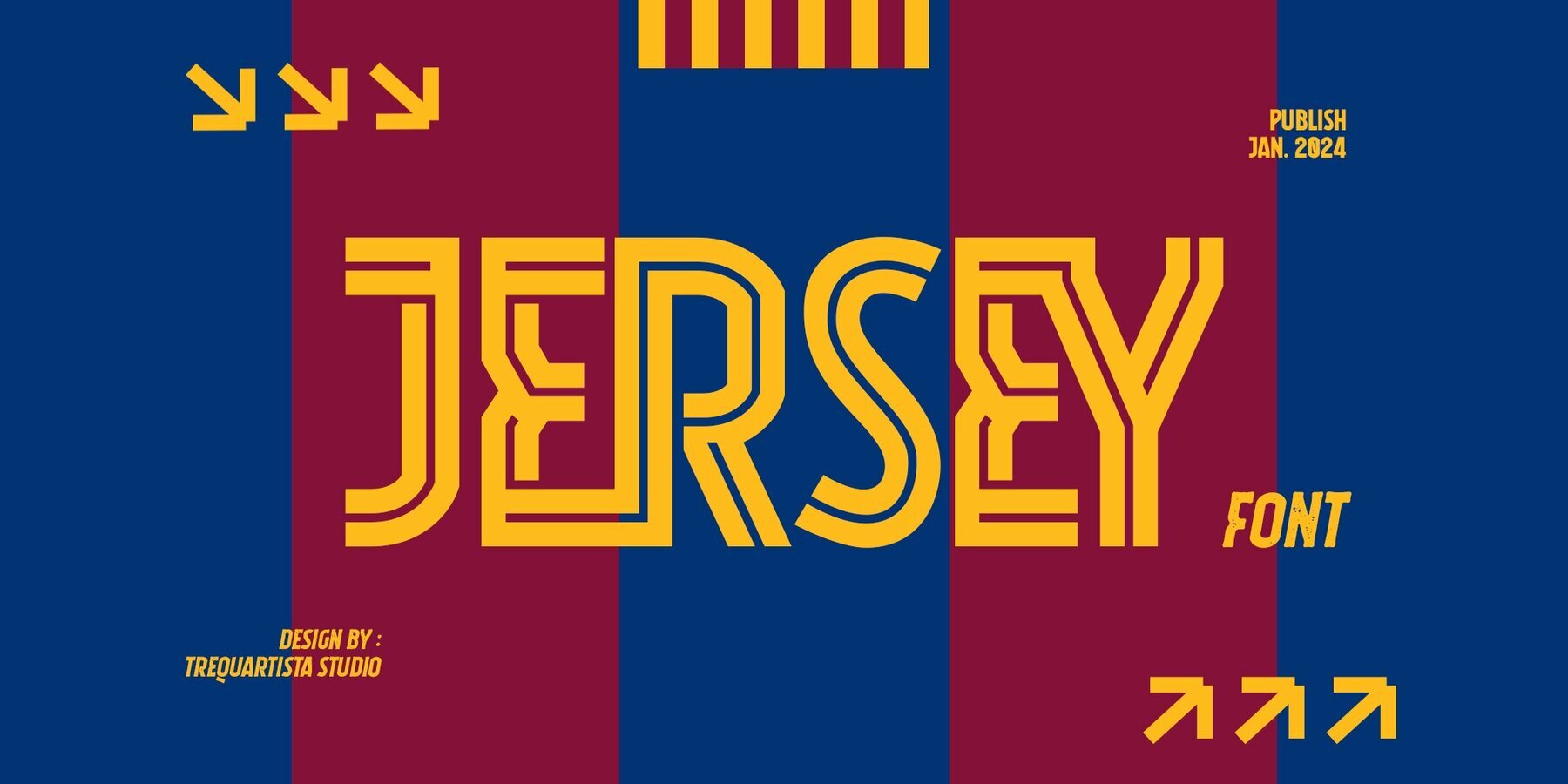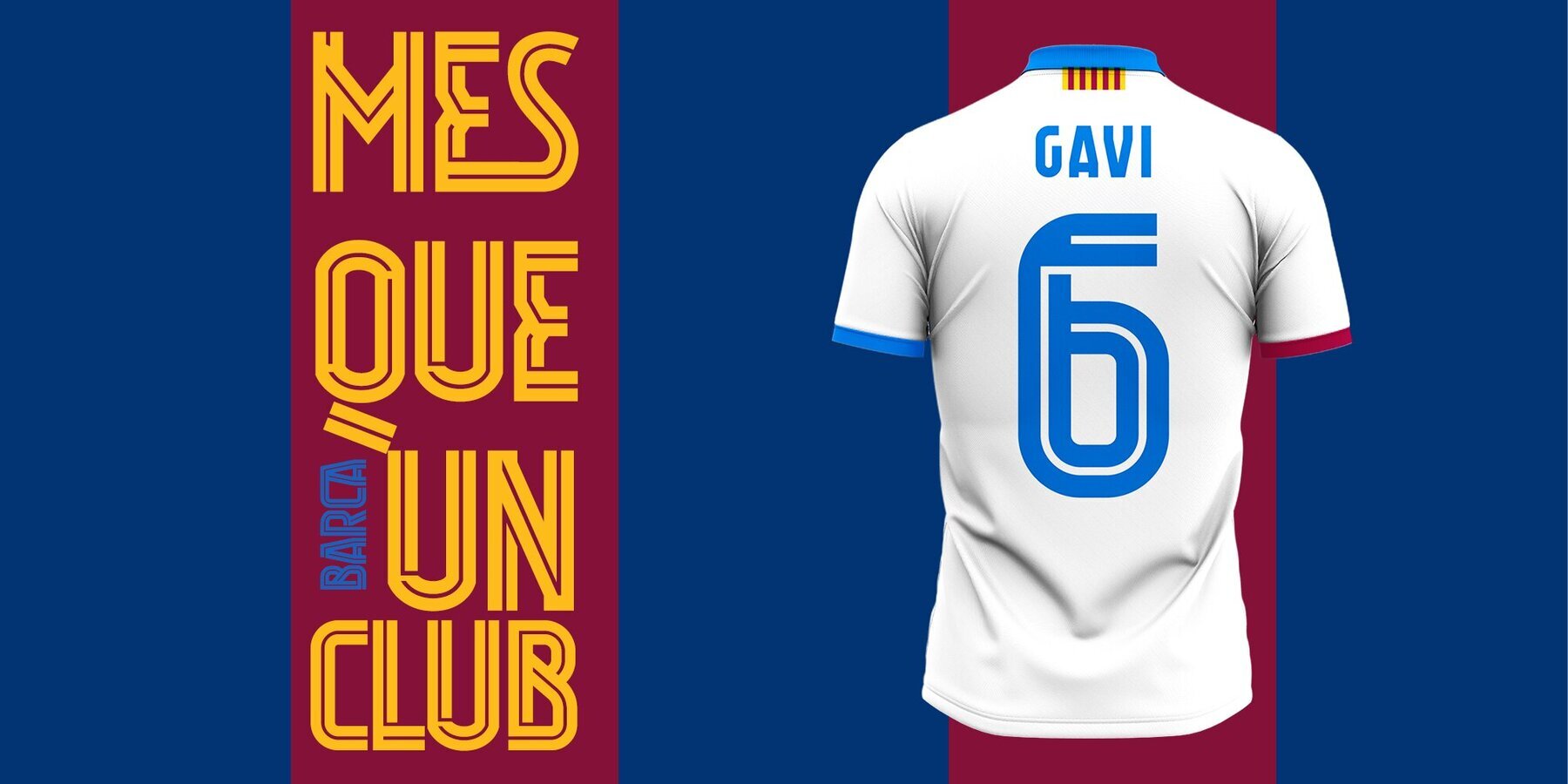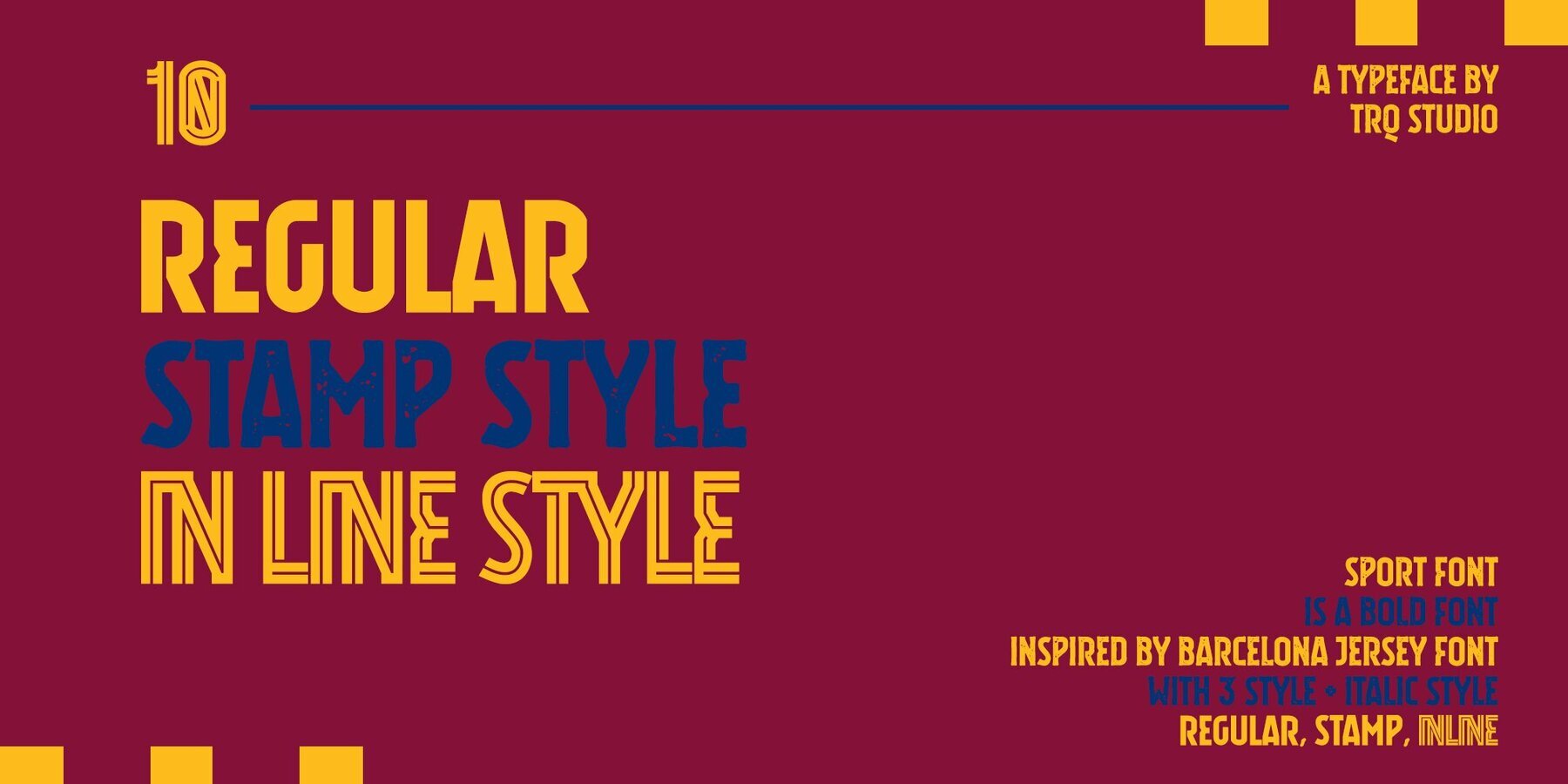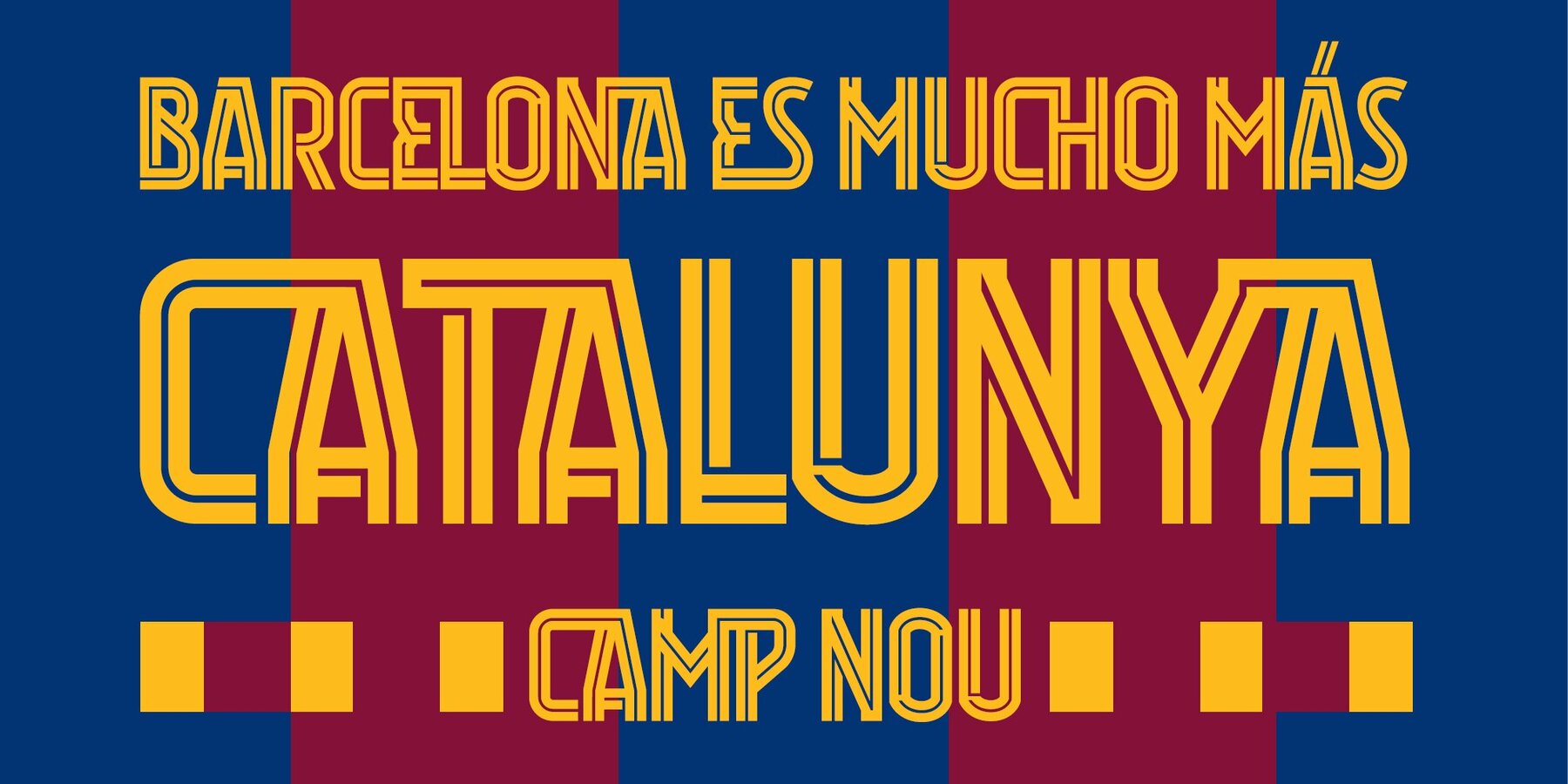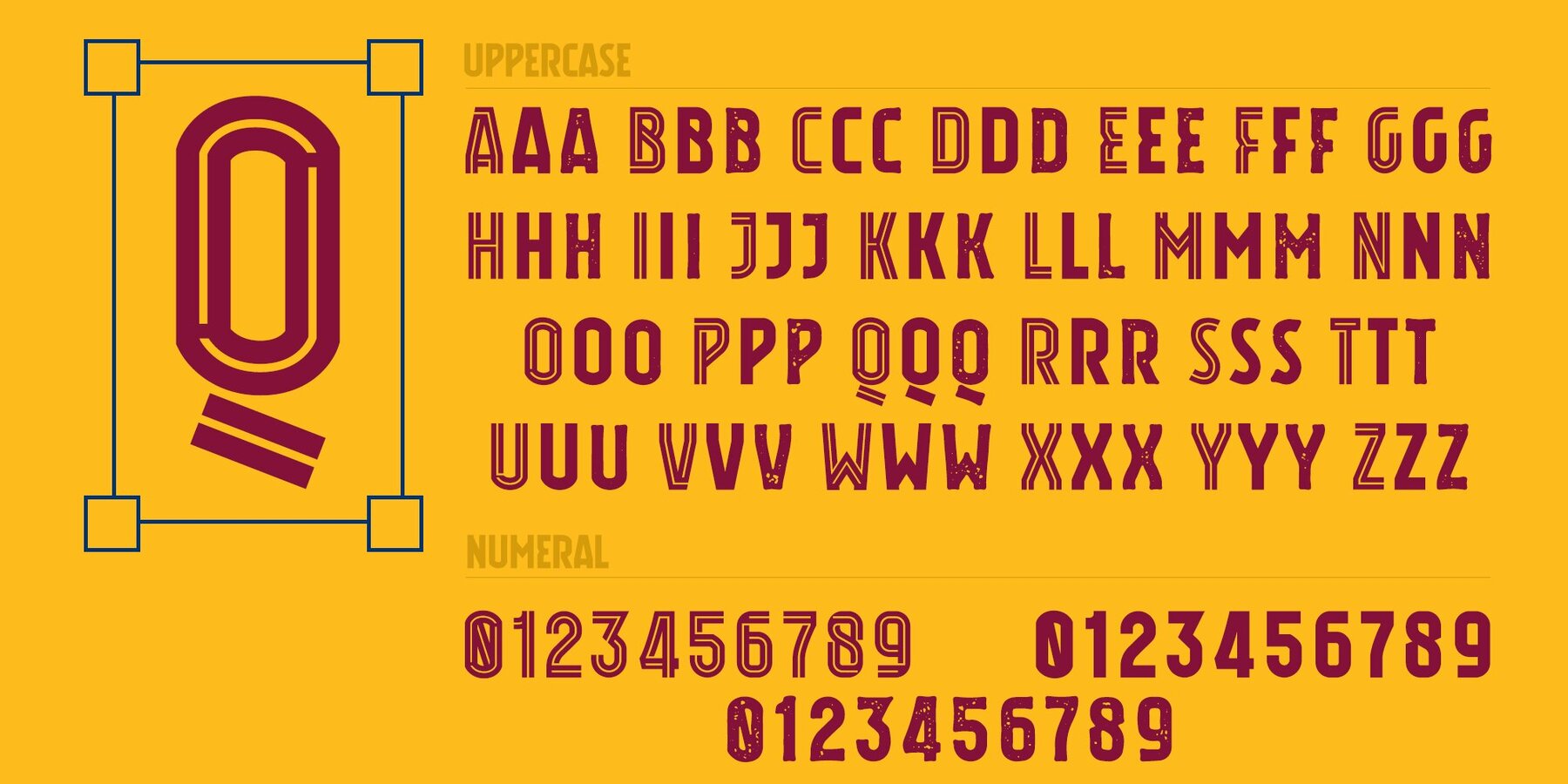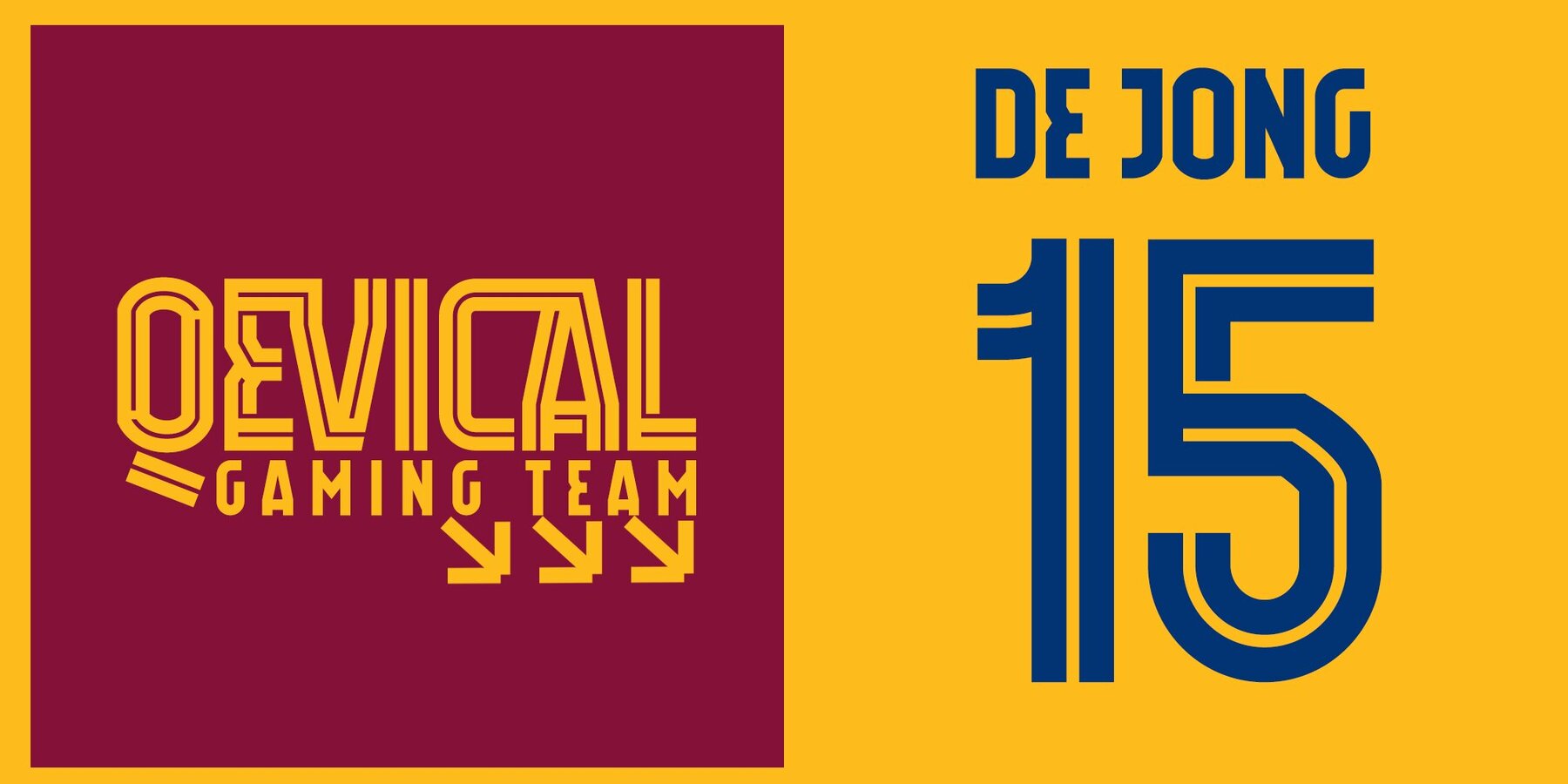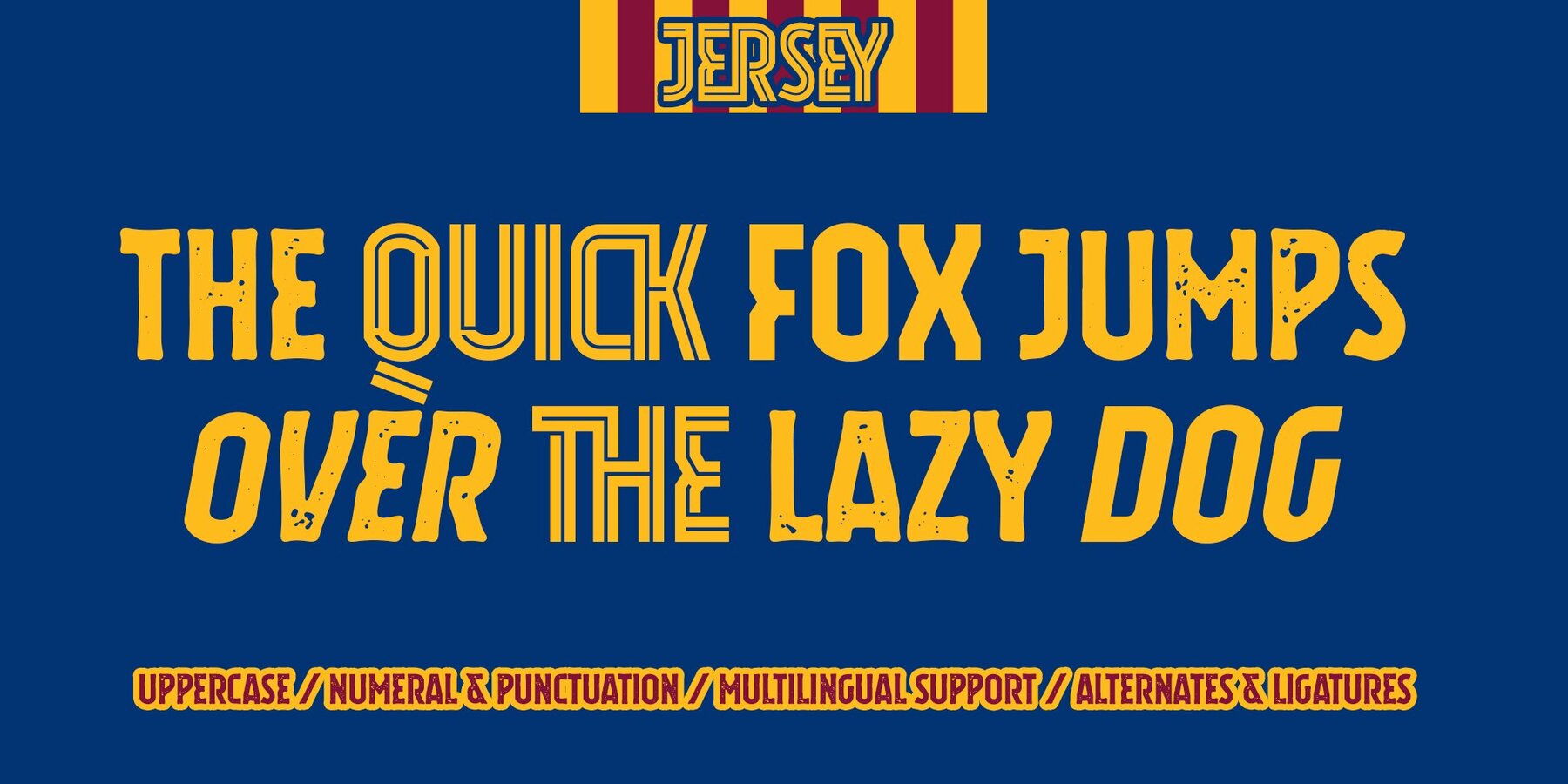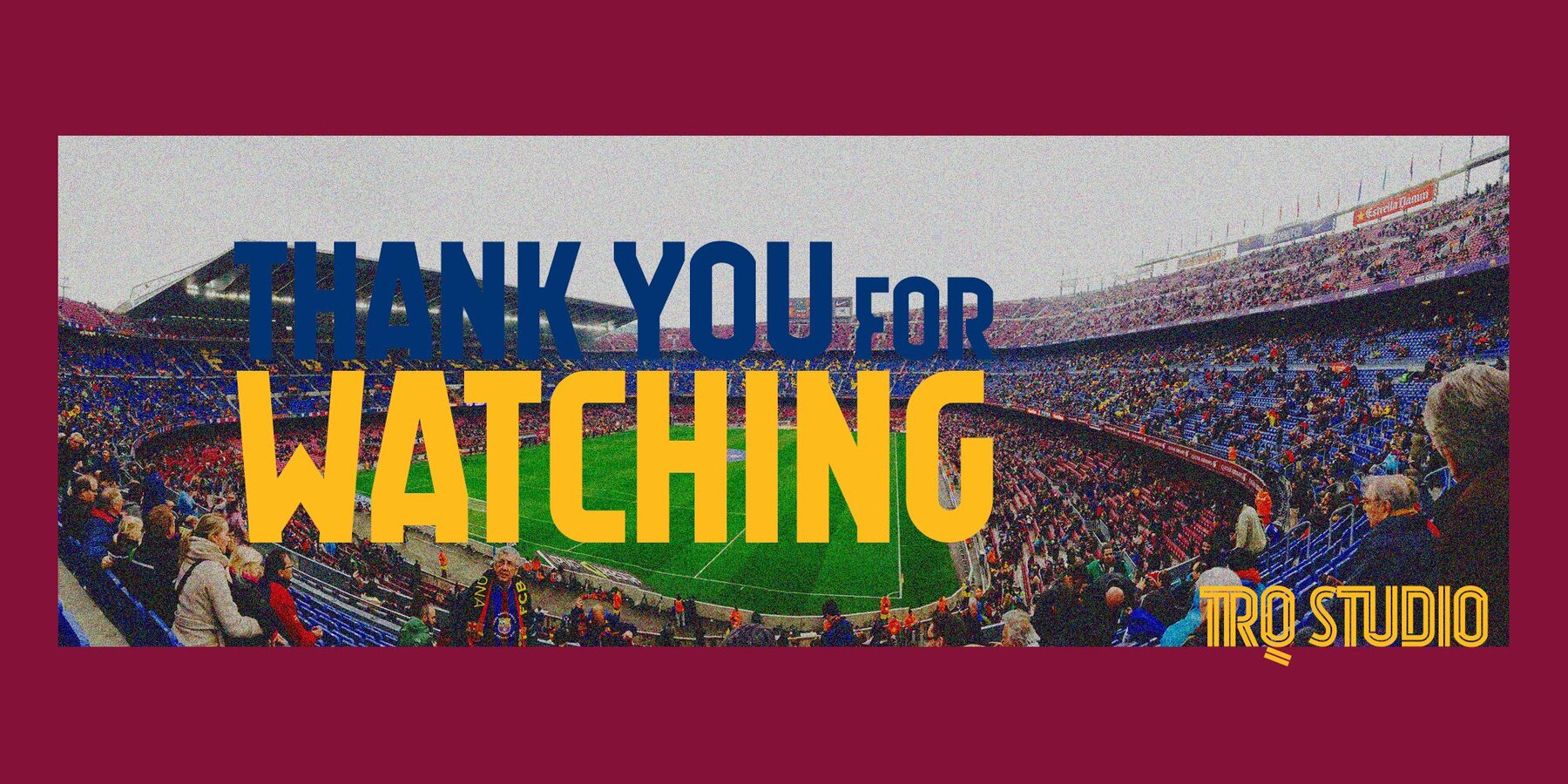
Jersey Font
Jersey Font, crafted by Lettercorner Studio, is an ideal choice for sports branding and beyond. This typeface is designed with a clean and athletic appearance, making it versatile for a variety of design needs.Jersey Font: A Condensed Sport Typeface
Font Styles and Features
Ideal Usage